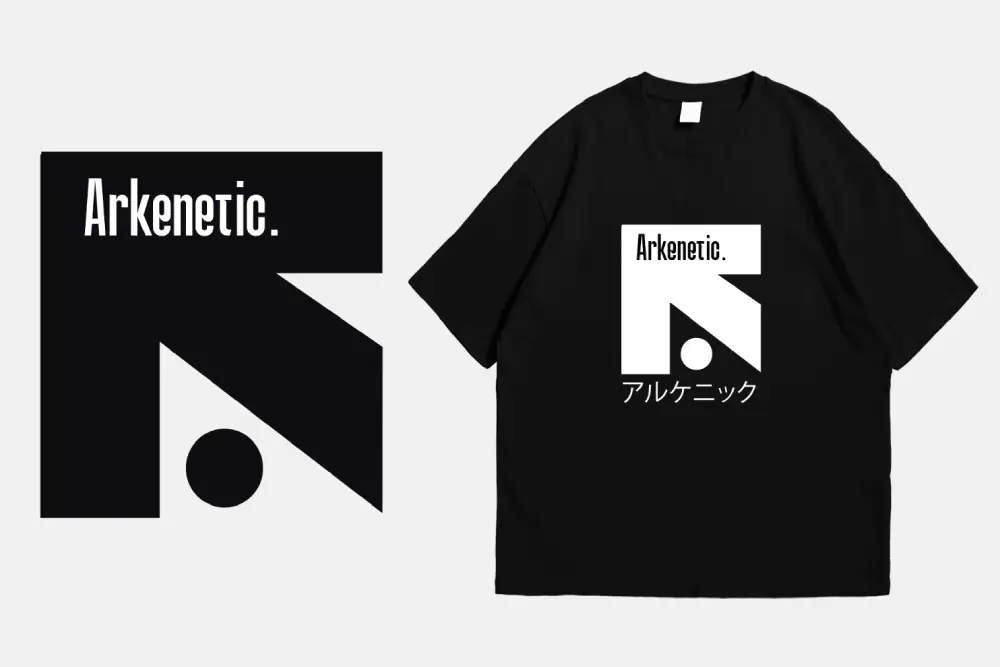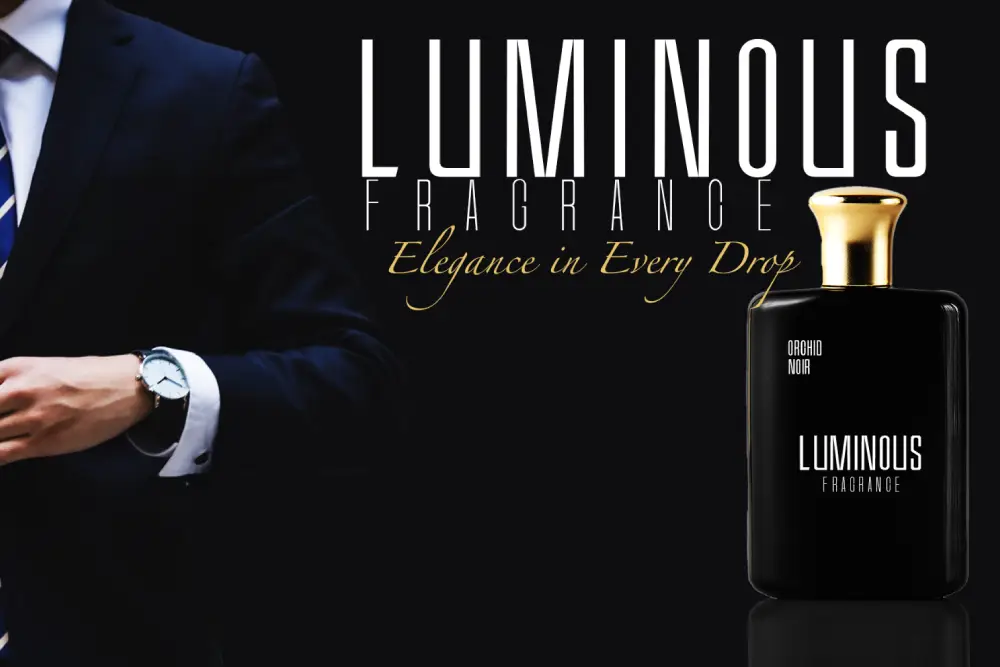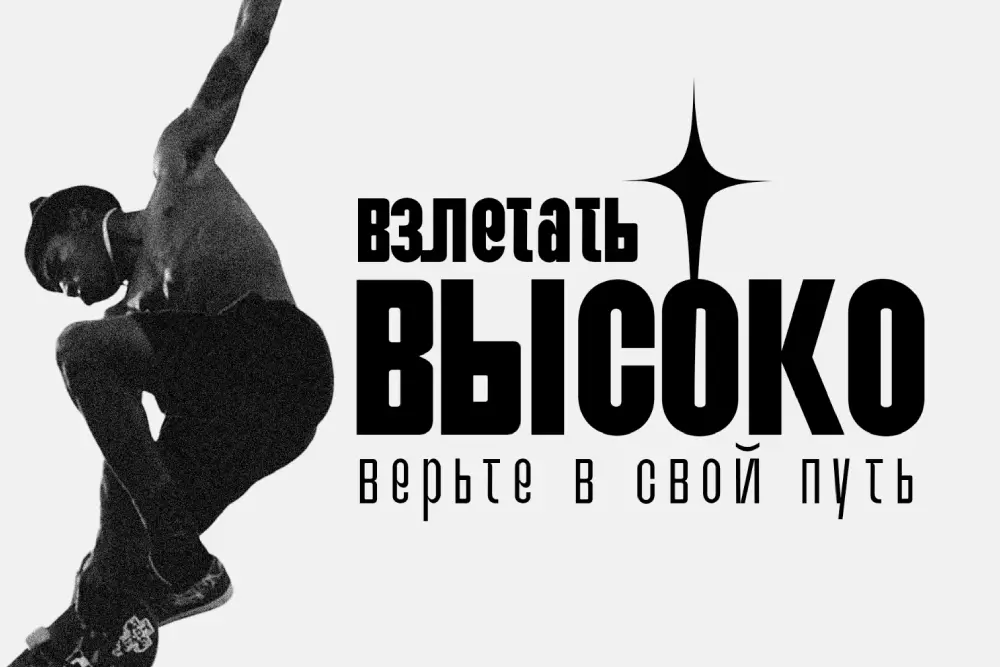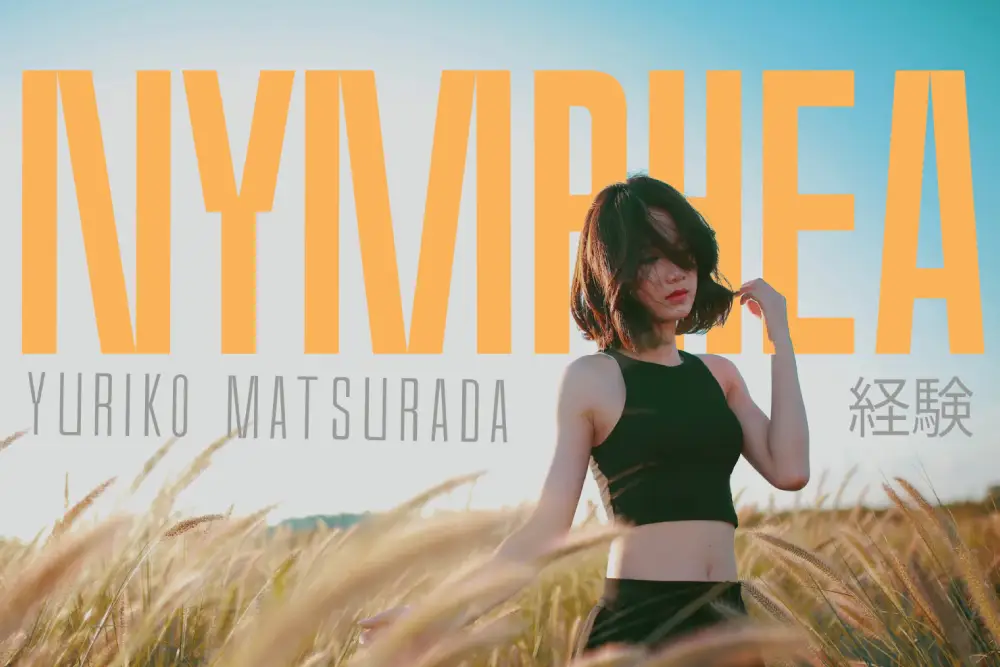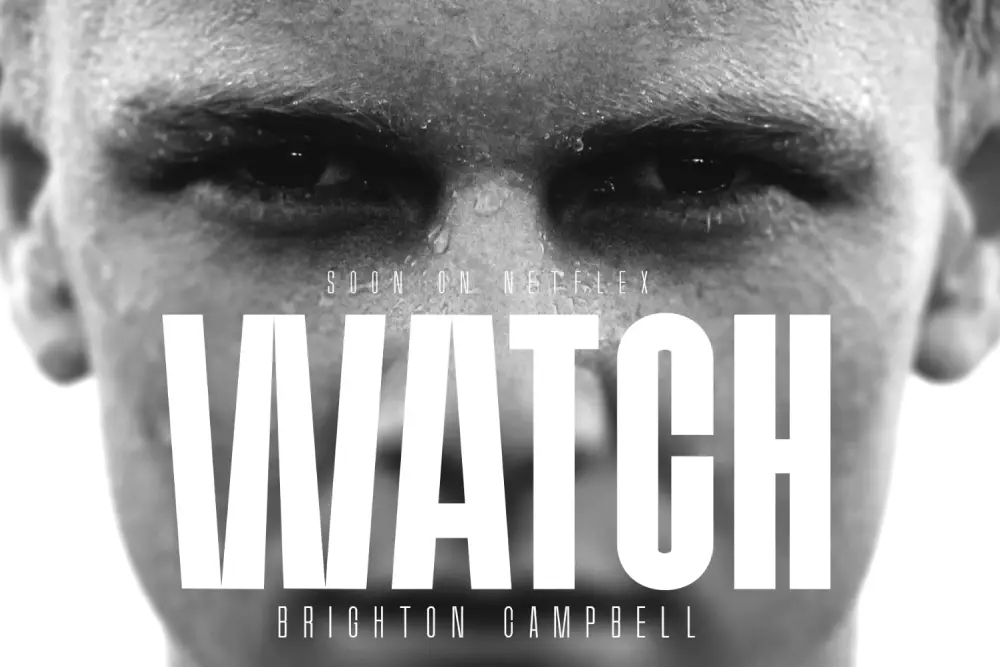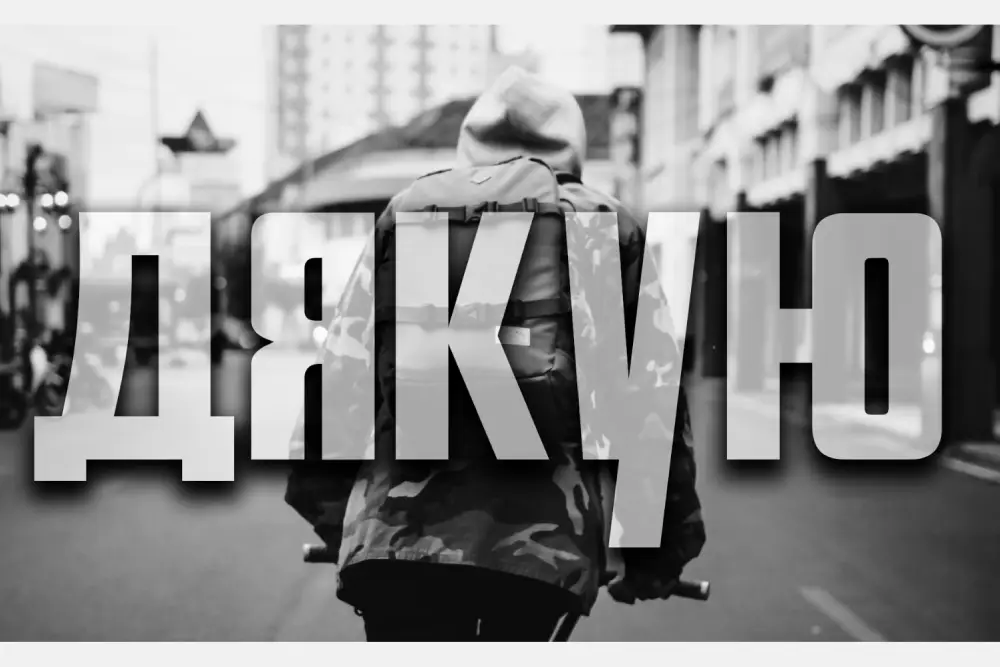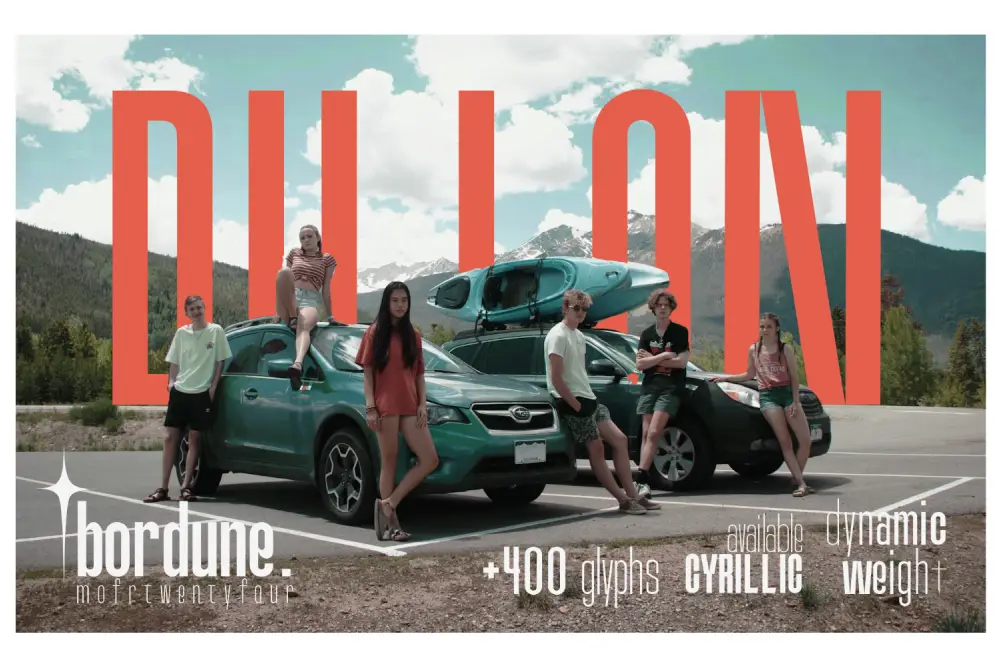
Bordune – Condensed Sans Serif Font for Modern Branding
Typography defines the tone of your brand. Bordune – Condensed Sans Serif Font brings a perfect balance of precision, clarity, and versatility into modern design. This condensed sans serif font offers a dynamic range of weights—from Hairline to Black—making it suitable for everything from minimalist UI design to impactful editorial headlines.
With multilingual and Cyrillic support, Bordune Condensed Sans Serif Font empowers designers worldwide to create consistent and professional layouts that look stunning across print and digital platforms.
Modern Condensed Sans Serif Font with Dynamic Weight
Bordune is built for flexibility. Every weight of this condensed sans serif font has been crafted with optical precision to ensure consistent readability and visual harmony. The condensed proportion allows designers to fit more content while maintaining modern aesthetics—perfect for headlines, mobile apps, and editorial layouts.
The dynamic weight system (from Hairline to Black) ensures creative freedom, enabling designers to use Bordune across brand hierarchies and visual systems without losing coherence.
Key Features of Bordune – Condensed Sans Serif Font
This condensed sans serif font was designed to meet professional design standards. Every detail contributes to its adaptability and clean visual appeal.
Additional Features:
• Uppercase & Lowercase
• Numbers & Punctuations
• Support Multilingual
• Cyrillic Available
• Dynamic Weight System (10 styles)
• Modern condensed sans serif design
Why Designers Love Bordune
Designers love Bordune – Condensed Sans Serif Font because it offers versatility and precision in one package. Its condensed shape saves space without sacrificing legibility, making it perfect for branding systems, mobile interfaces, and editorial projects.
Here’s why Bordune stands out among condensed sans serifs:
• Dynamic Weight Range: From Hairline to Black for complete design flexibility.
• Professional Geometry: Balanced strokes for clean, modern appearance.
• Global Use: With multilingual and Cyrillic support, it’s ready for international brands.
Bordune Condensed Sans Serif Font in Branding and Editorials
In branding, consistency is everything. Bordune’s structured forms and condensed geometry make it ideal for logotypes, packaging, and corporate communication. This condensed sans serif font conveys authority and sophistication without losing approachability.
For editorial layouts, Bordune excels in tight columns and bold titles. Its multiple weights allow effortless typographic hierarchy—Hairline for captions, Regular for body text, and Black for bold headlines. The result: a unified reading experience across all mediums.
Bordune in UI/UX and Web Design
Digital designers value efficiency. Bordune’s condensed form helps maintain clean interfaces and optimal spacing across devices. This condensed sans serif font is highly readable at small sizes while still looking confident in large displays.
It’s the perfect choice for app typography, dashboards, and responsive layouts where both form and function matter. Combined with Bolde Powerful Sans Serif, it creates an aesthetic blend of stability and innovation.
Font Pairing Recommendations
Pairing Bordune with the right fonts creates stunning contrasts and cohesive designs.
Try combining it with:
Each pairing highlights a different aspect of Bordune’s versatility, from precision to playfulness.
Try Bordune Condensed Sans Serif Font
Before committing, you can experience Bordune directly online. Try here and explore how this condensed sans serif font performs across various applications—from editorial mockups to UI layouts.
Why Bordune is the Best Condensed Sans Serif Font for Professionals
Bordune was built with design efficiency and adaptability in mind. Its condensed structure makes it a go-to for designers working in high-precision, space-conscious environments. Whether you’re designing for tech startups, digital publications, or lifestyle brands, this condensed sans serif font adapts beautifully to every scenario.
Bordune—because clarity deserves design precision.